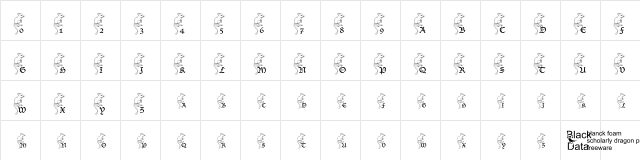
pf_field_mouse Regular
Design Context for pf_field_mouse Typeface
pf_field_mouse is a composed and adaptable typeface that performs quietly and consistently across a wide range of design contexts.